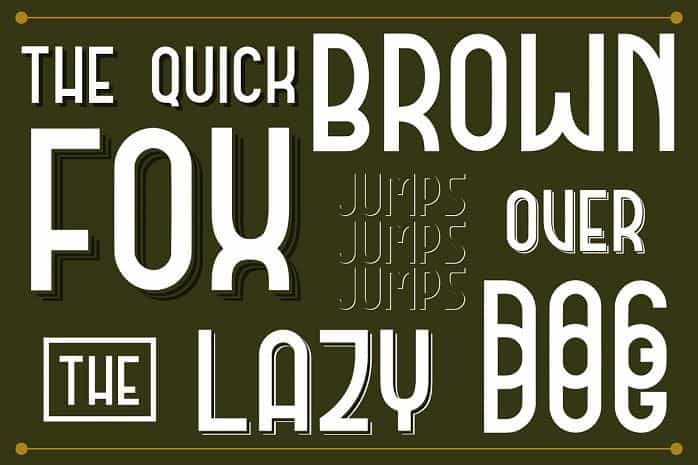
DOMCO Typeface. The design of DOMCO is an art deco and modern classic elegant design. By trying with the 6 alternative fonts for each letter and the 3 font variations in dancing script, what would you lose if trying to give it a shot?